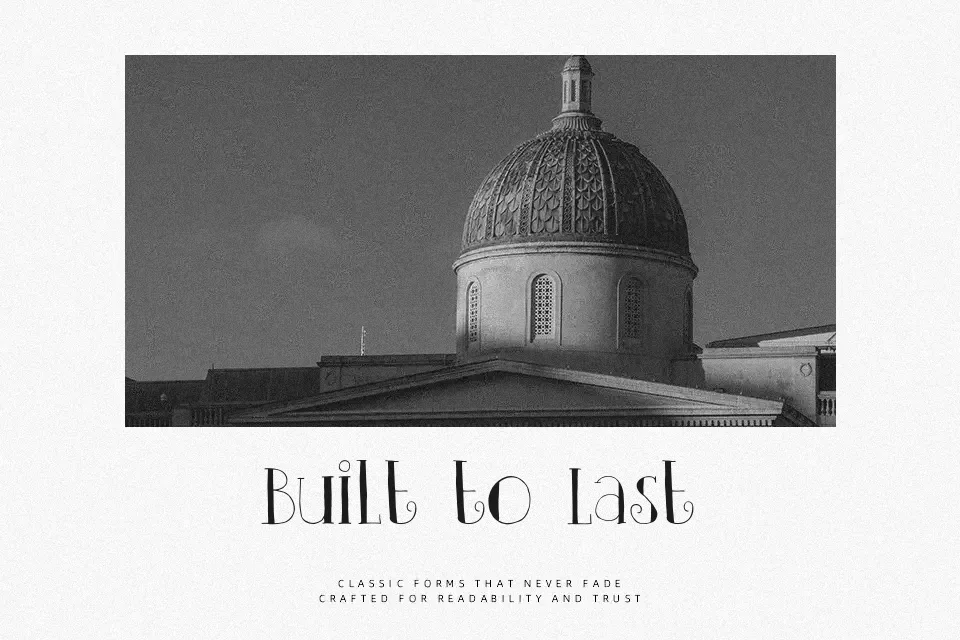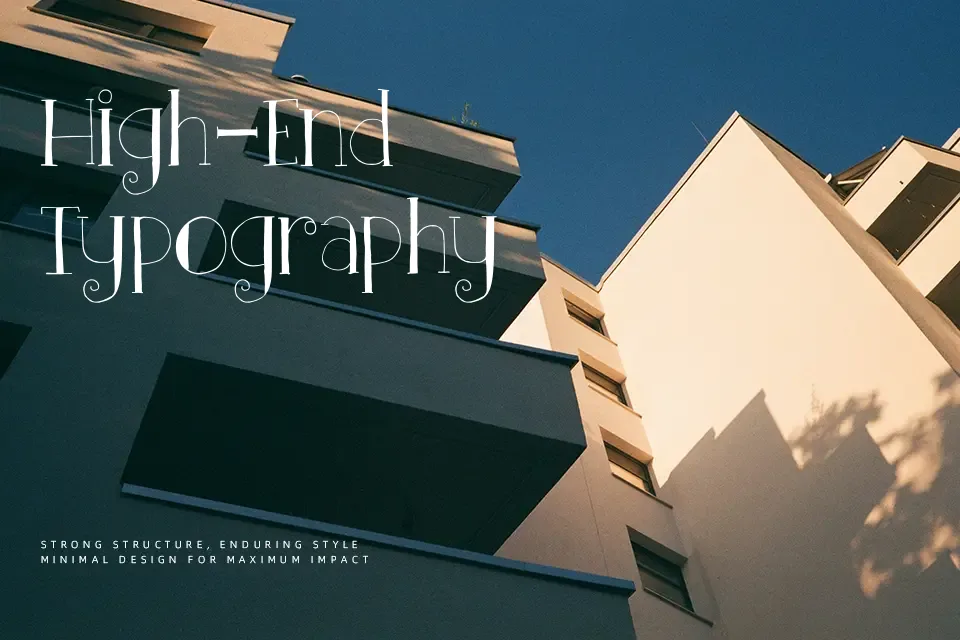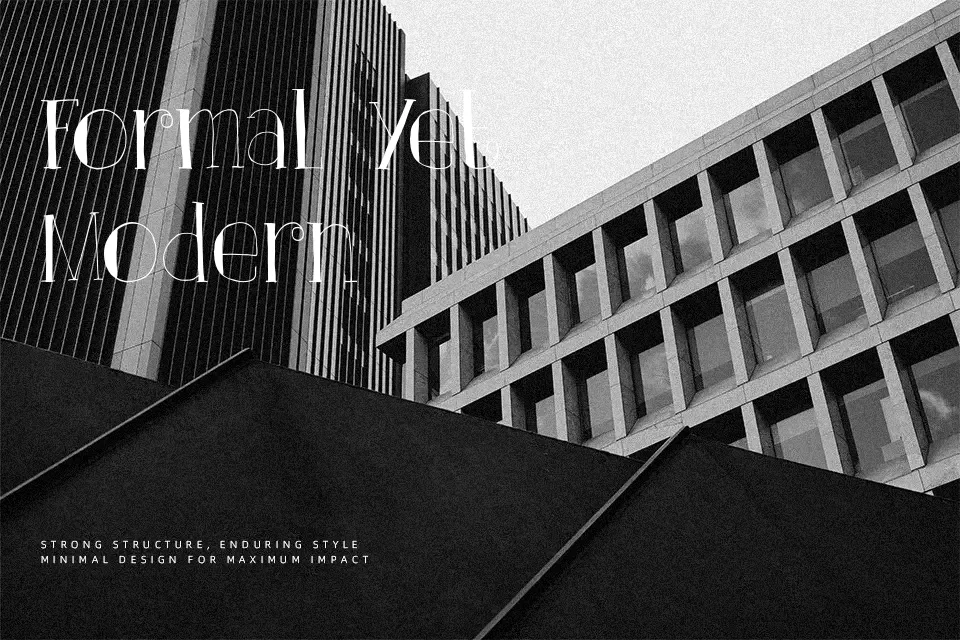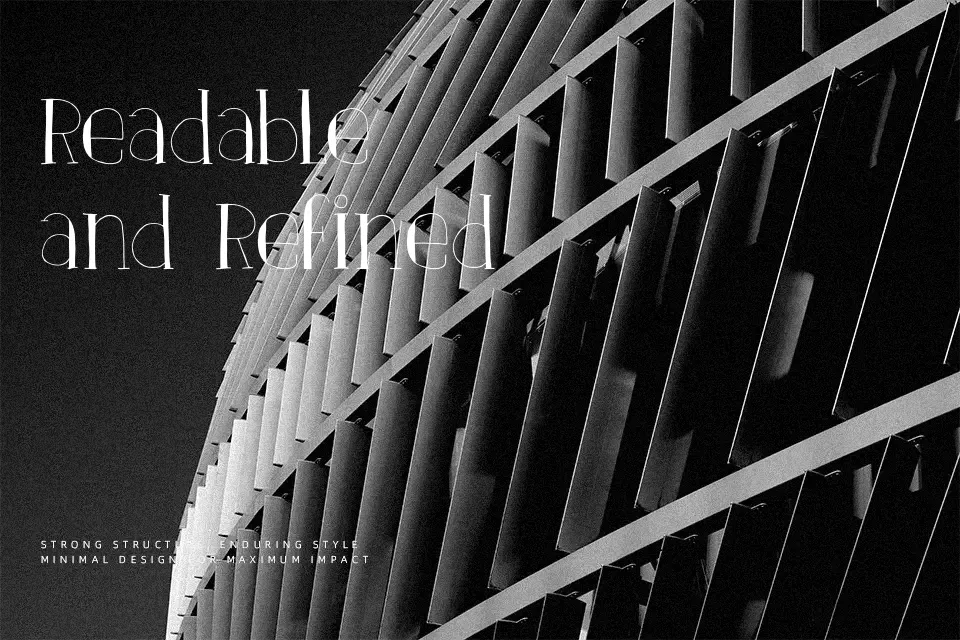
DK Clair De Lune Font
Designed by David Kerkhoff
This font leans on tall proportions, hairline strokes, and sharp contrast, with a few slightly quirky curves that keep it from feeling too formal. It reads like a decorative serif with a faint Art Nouveau mood, so it works best on bookish poster titles, boutique candle labels, wedding pieces, or magazine-style hero text where you want elegance without heavy ornament. I would avoid it for body copy, app interfaces, or children’s graphics, because the thin structure and tight details lose clarity quickly once the size drops or the layout gets busy.
boutique invitations; fashion-style headlines; candle or perfume labels; seasonal poster titles
body paragraphs; app interfaces; small captions; kids-focused branding
Perfect for editorial, headline, and invitation, with a artistic and decorative style.